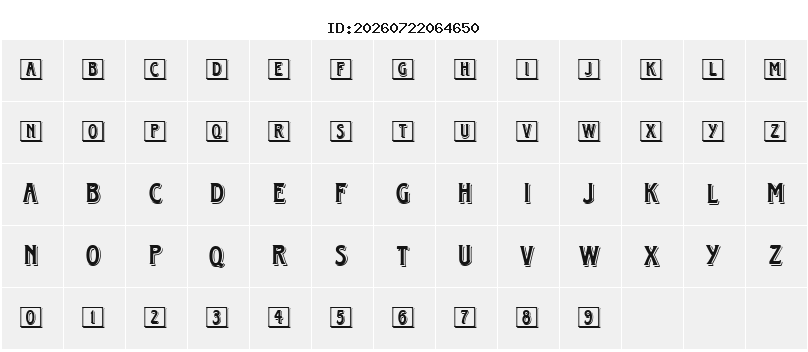
• Font Name: Horndon Becker Initials
Horndon Becker Initials.ttf is a modern, elegant sans-serif font designed for ultimate readability and visual harmony. Perfect for branding, headlines, web design, and print materials.